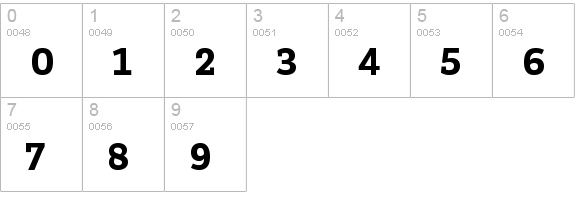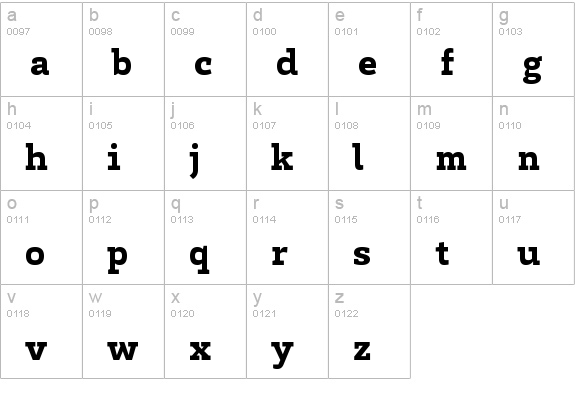
Brix Slab Black is a maximum-weight, dramatic variant in the Brix typeface family \xE2\x80\x94 well suited to maximum-impact headlines, posters, and packaging.
Brix Slab Black is a bold and impactful typeface that commands attention with its strong, sturdy letterforms. Designed with a modern and geometric aesthetic, this font exudes confidence and authority, making it perfect for headlines, branding, and display purposes. The thick strokes and sharp angles of Brix Slab Black create a striking visual impact, ensuring that your message will not go unnoticed. And the best part? Brix Slab Black is available for free download at FontsMarket.com. This means you can easily access and use this powerful font in your projects without any cost. Don't miss out on the opportunity to enhance your designs with the bold and commanding presence of Brix Slab Black. Download it today and make a statement with your typography.